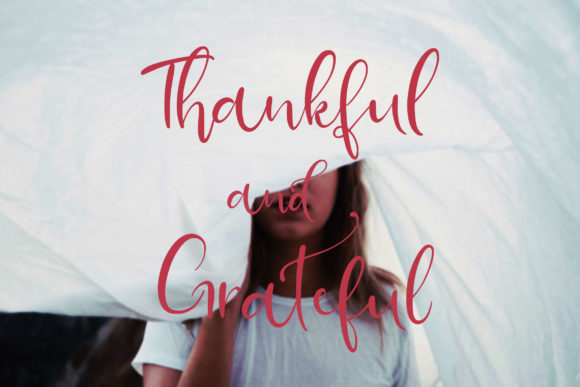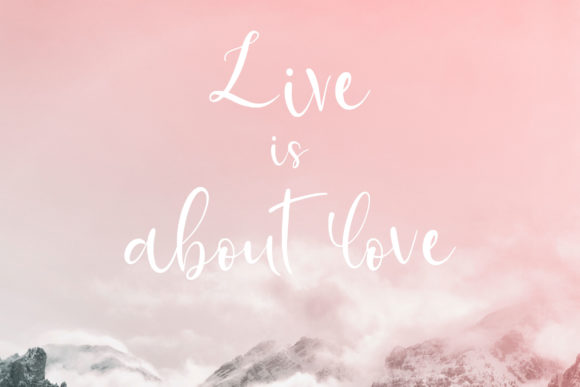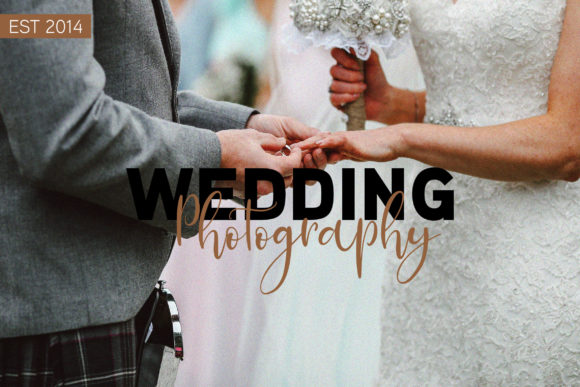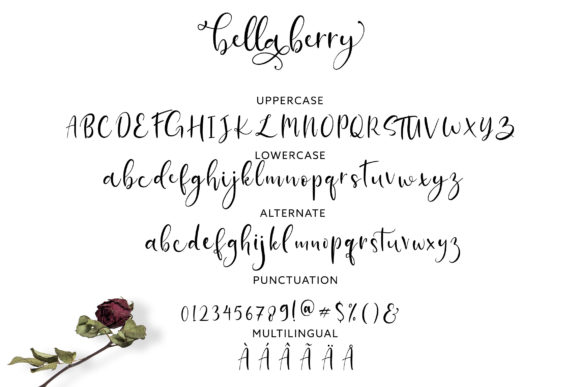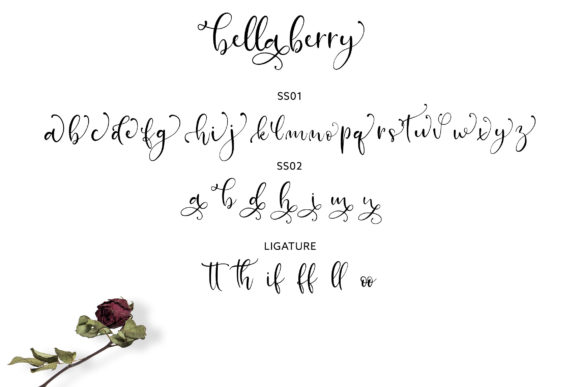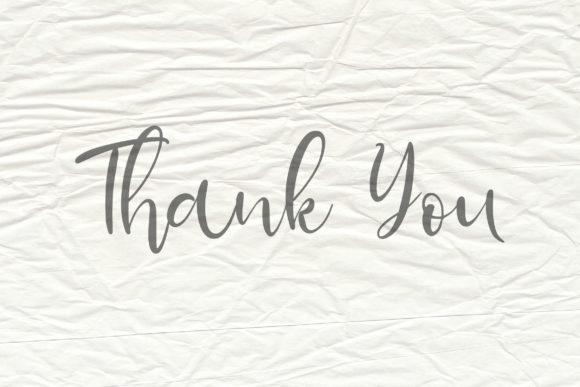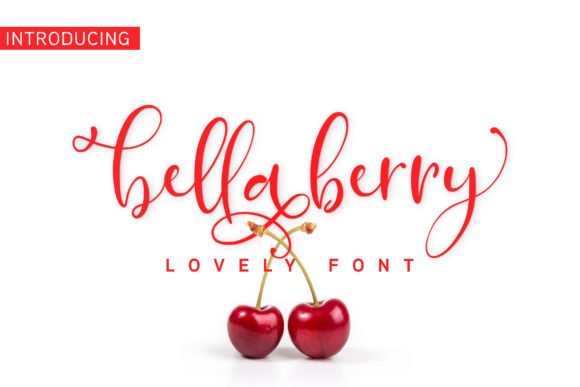
When Words Become Works of Art
Have you ever been stuck in a design rut, staring blankly at a blank page, trying to find the perfect font to match your creative vision? That’s exactly what happened to me when I stumbled upon the enchanting Bella Berry Font. I was working on a wedding invitation design and wanted to add a touch of whimsy and romance. The moment I laid eyes on Bella Berry’s flowing script, I knew I had found my perfect match.
This lovely script font features uppercase and lowercase letters, multilingual symbols, numerals, punctuation, and those adorable lowercase swashes that add an extra layer of charm. As a designer, I can attest that Bella Berry Font is a valuable addition to any typography collection. Its playful and authentic twist makes it perfect for a wide range of designs, from invitation cards and branding to stationery and quotes.
Bella Berry Font Key Features
- Unique Characteristics: The font features a distinctive, whimsical design with a mix of cursive and script elements, making it ideal for creative and artistic projects.
Bella Berry Font Review
Overall, I was excited to dive into the Bella Berry Font and see what it had to offer. As a designer, I’m always on the lookout for unique and eye-catching fonts that can add a touch of personality to a project.
- Quirky charm: The Bella Berry Font has a playful, whimsical feel that’s perfect for projects that need a touch of whimsy.
- Variety of weights: The font comes in a range of weights, from light to bold, which gives designers a lot of flexibility when it comes to choosing the right look.
- Fun flourishes: The font’s decorative flourishes add a touch of elegance and sophistication, making it perfect for projects that need a bit of glamour.
- Limited legibility: At smaller sizes, the font can become difficult to read, which may limit its use in certain applications.
- No bold-italic: Unfortunately, the font doesn’t come in a bold-italic weight, which can be a limitation for designers who need to create emphasis.
Overall, I think the Bella Berry Font is a fun and versatile addition to any designer’s toolkit. While it may have some limitations, its unique charm and variety of weights make it a great choice for projects that need a touch of personality.
The Bella Berry Font is ideal for:
- Creating feminine and elegant designs.
- Adding a touch of whimsy and playfulness to your designs.
- Using in titles, headings, and subheadings.
Alternatives to Bella Berry Font
Great Vibes is a modern calligraphy font with elegant and flowing lines. It’s perfect for designers who want to create a whimsical and romantic feel in their projects. Great Vibes is ideal for wedding invitations, greeting cards, and other decorative designs.
Comparison to Bella Berry Font: While Bella Berry Font has a more delicate and feminine look, Great Vibes Font has a more playful and dynamic feel. Great Vibes is better suited for projects that require a bit more energy and movement.
Carolyna Pro is a modern script font with a touch of sophistication and elegance. It’s perfect for designers who want to create a high-end and luxurious feel in their projects. Carolyna Pro is ideal for fashion branding, luxury packaging, and other high-end designs.
Comparison to Bella Berry Font: While Bella Berry Font has a more delicate and whimsical look, Carolyna Pro Font has a more polished and sophisticated feel. Carolyna Pro is better suited for projects that require a sense of luxury and refinement.